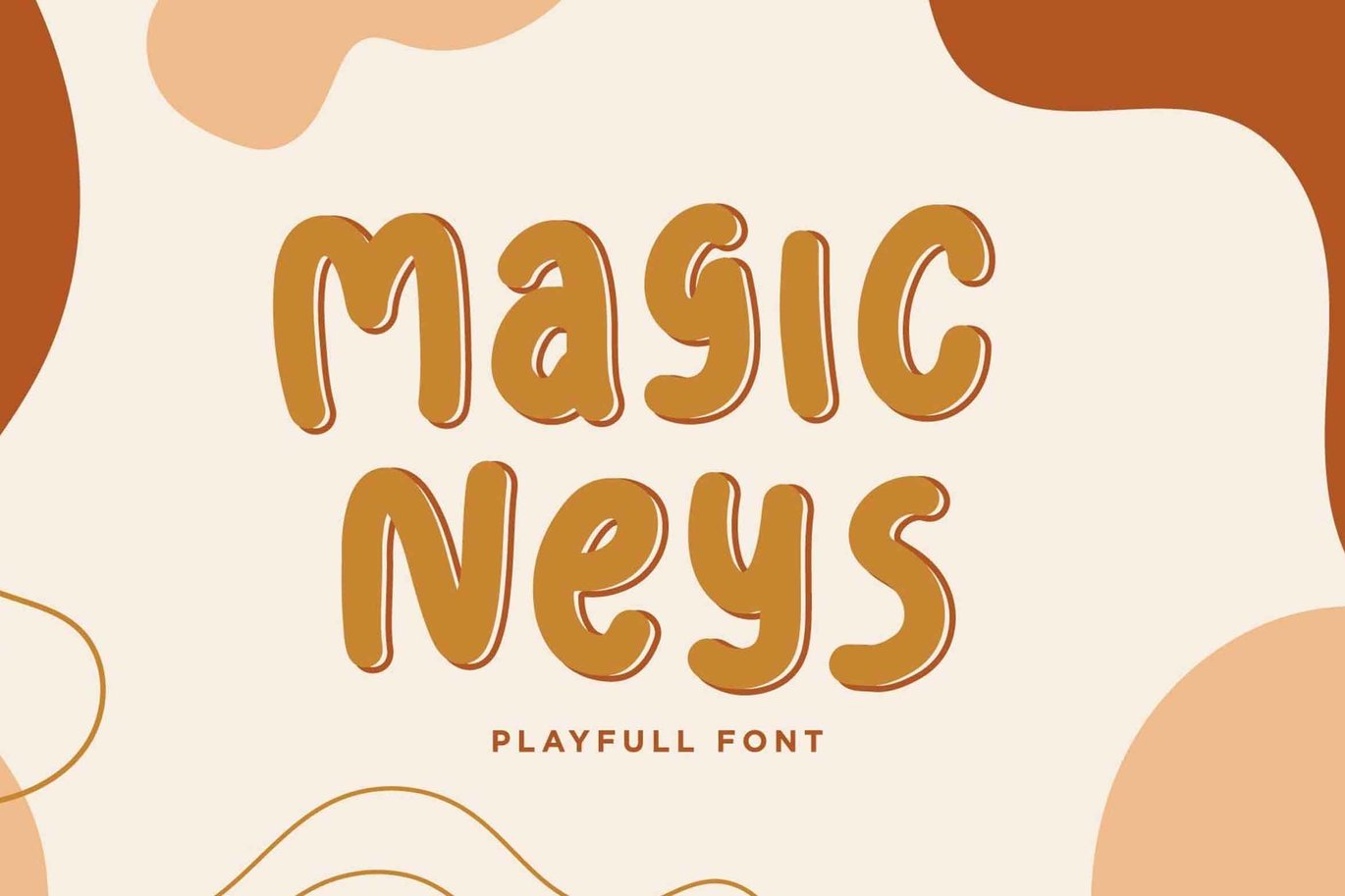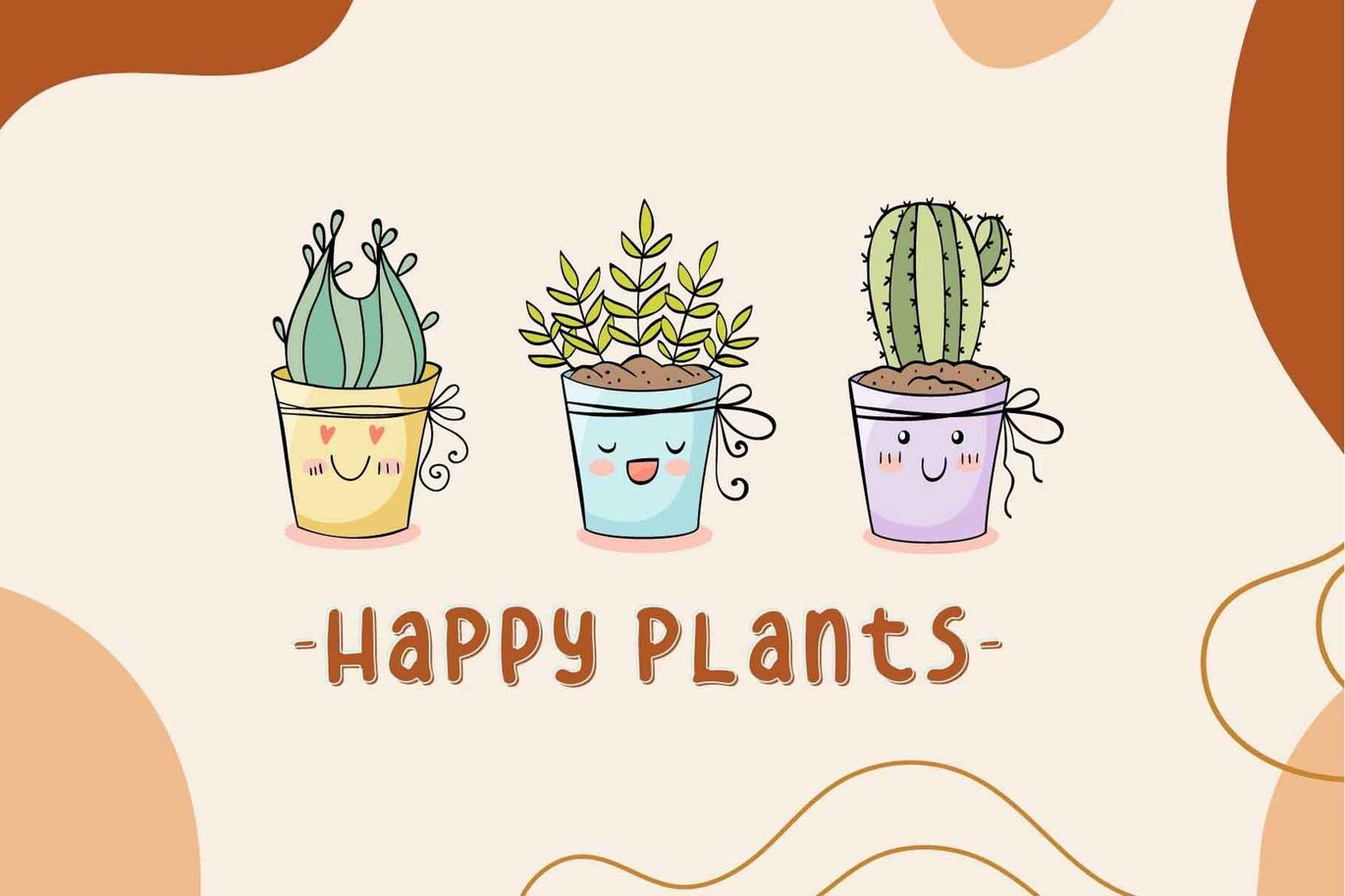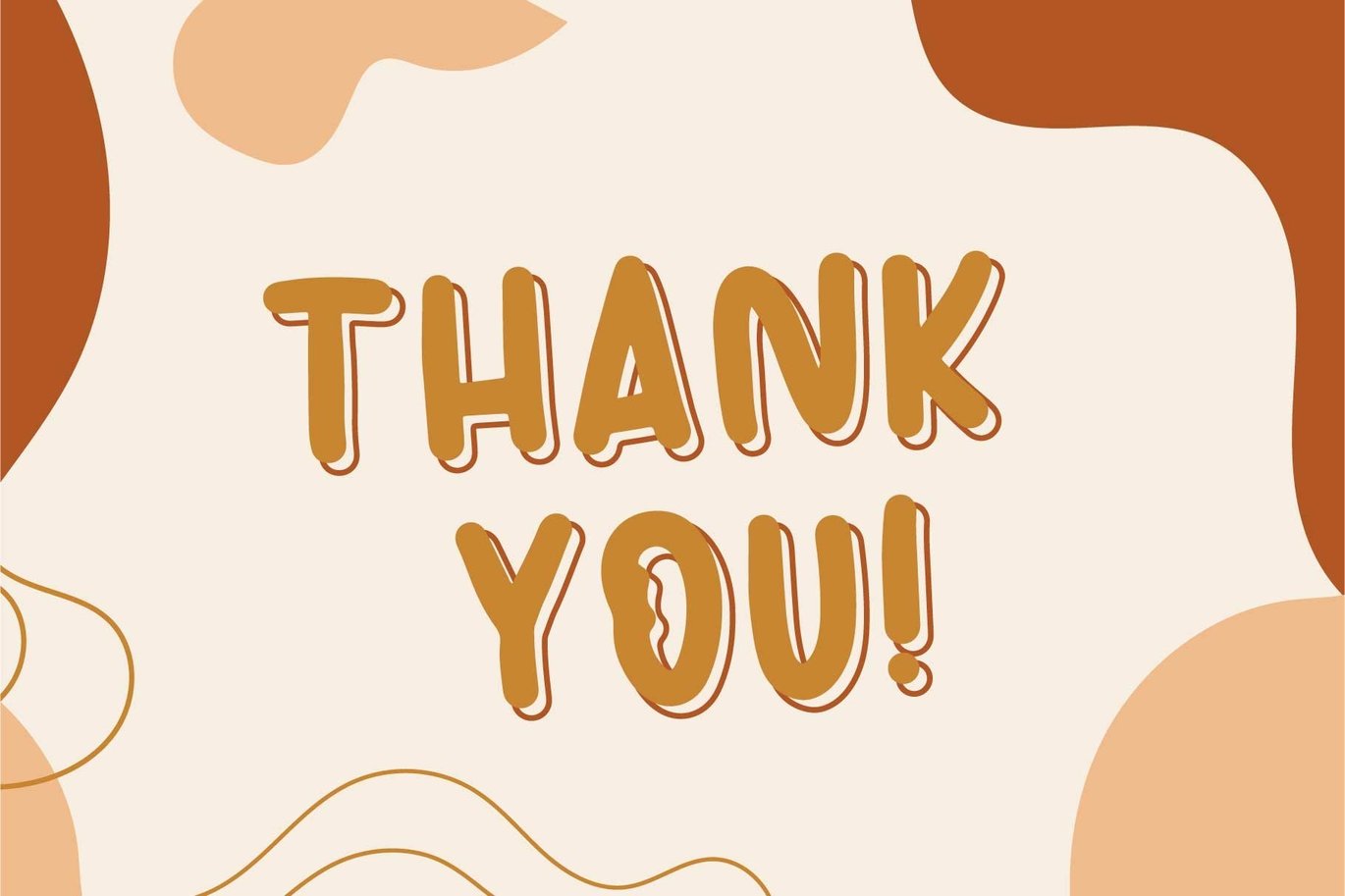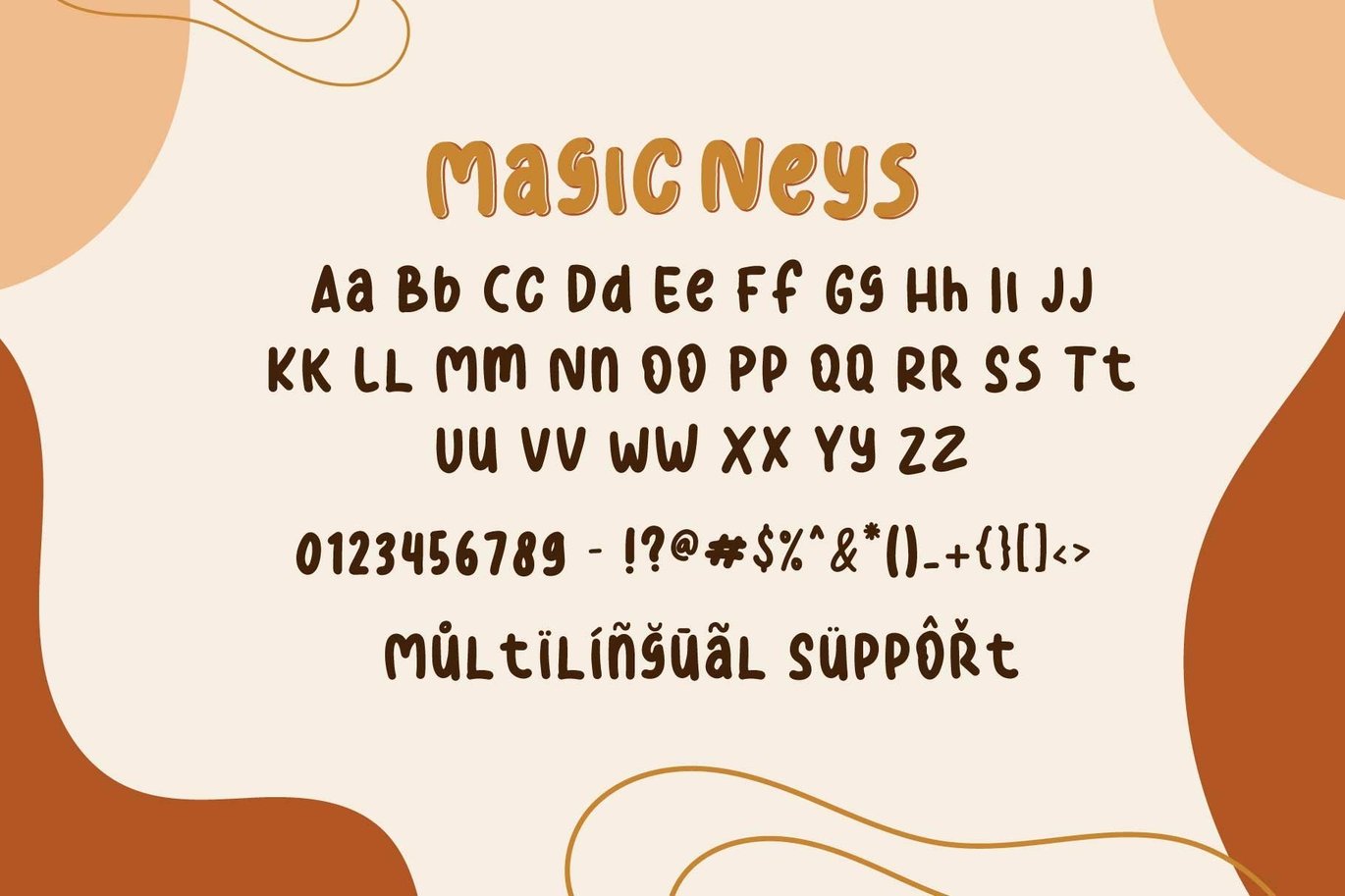
Magic Neys – Fun Children Font
Magic Neys is a Handwritten Playfull font carefully
created with a touch of Cute.
Magic Neys is perfect for branding projects, logo, wedding designs, social media posts, advertisements, product packaging, product designs, label, photography, watermark, invitation, stationery and any projects that need handwriting taste.